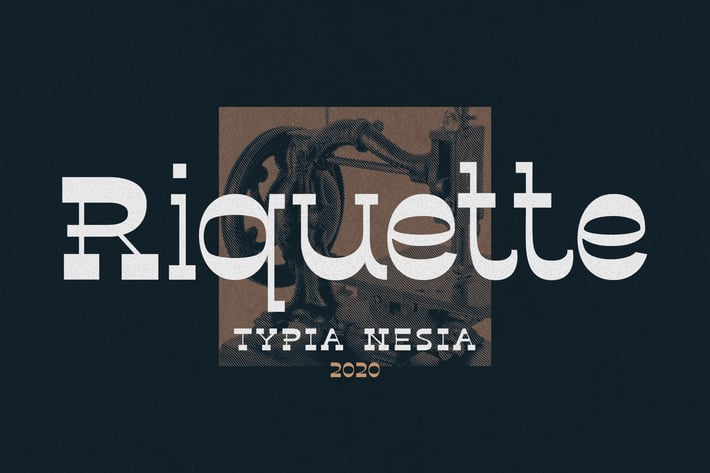
Riquette - Reverse Serif Font
yipianesia
Riquette - Reverse Serif - Vintage Retro Font
Riquette is perfect for your up coming projects. Such as logo branding, editorial design, stationery design, sport design, blog design, modern advertising design, card invitation, art quote, home decor, book/cover title, special events and any more.